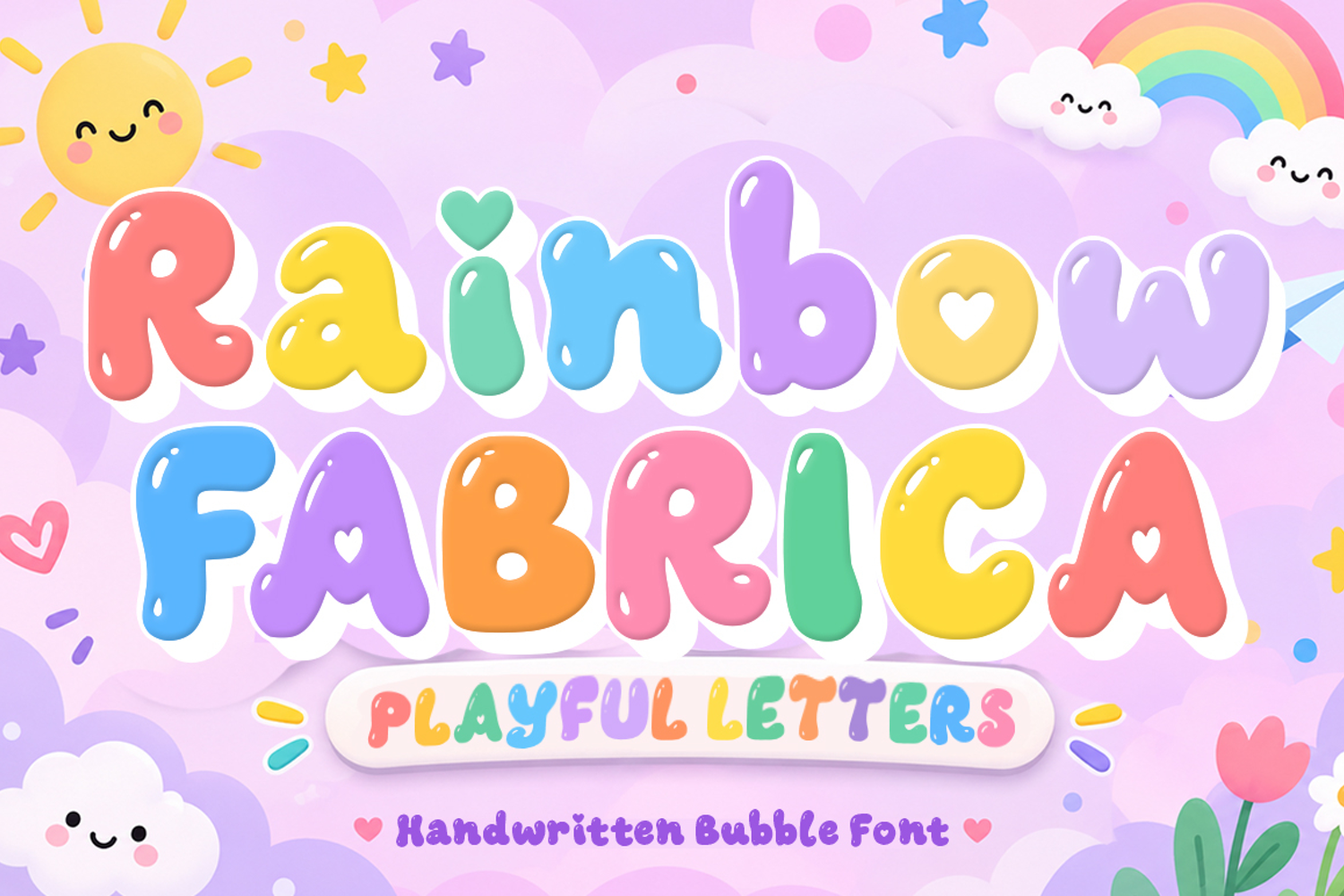
Rainbow Fabrica – Playful Handwritten Bubble Font
Bring a burst of joy and sweetness to your creative designs with Rainbow Fabrica, a cute, bubbly handwritten font designed to spark happiness! Featuring soft, rounded edges, glossy bubble highlights, and adorable heart cutouts in select characters, this font is perfect for projects that need a fun, cheerful, and whimsical vibe.
• Chubby & Cute Design: Thick, rounded letterforms that give a friendly, approachable feel.
• Playful Details: Subtle glossy highlights and heart-shaped counters for added charm.
• Versatile Use: Includes uppercase letters, numbers, punctuation, and decorative elements.
• Children’s book covers and storybook illustrations
• Cute merchandise (t-shirts, mugs, stickers, and tote bags)
• Birthday invitation cards and party decor
• Nursery wall art and cheerful branding
• Social media graphics and YouTube thumbnails